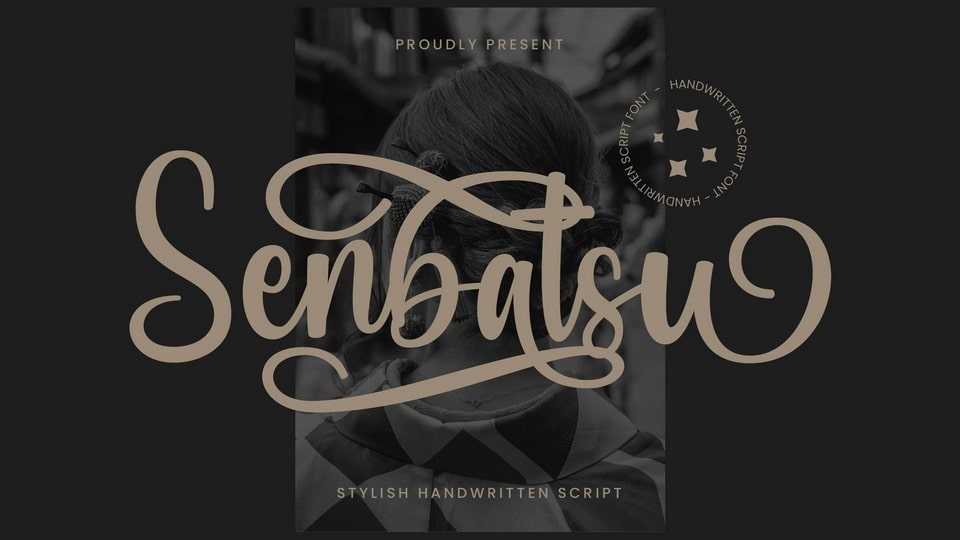
Download Senbatsu font, a beautiful and romantic script typeface. Senbatsu looks stunning on wedding invitations, thank you cards, quotes, greeting cards, logos, business cards and every other design which needs a lovely handwritten touch.